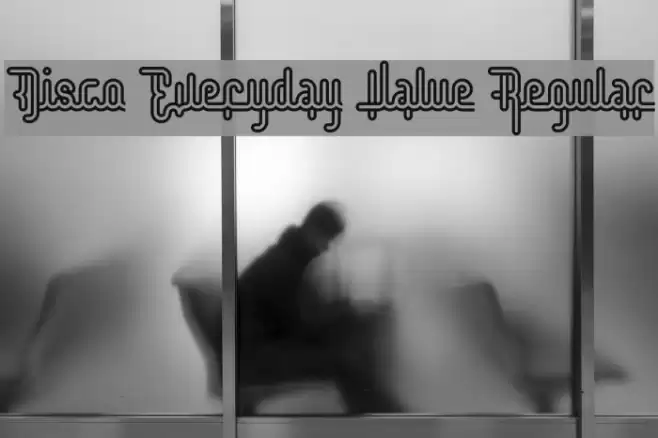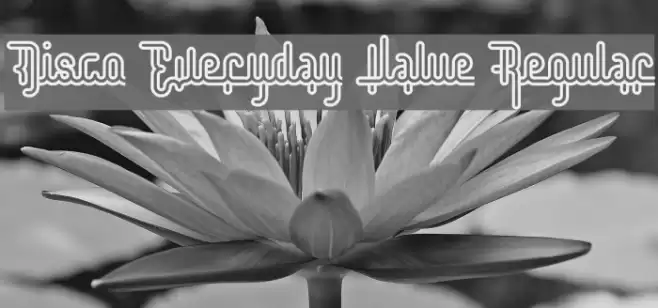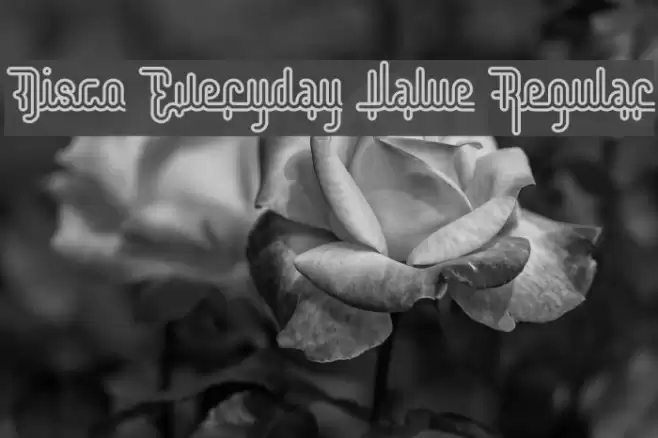
Disco Everyday Value Regular Font
Disco Everyday Value Regular Description
This font features a unique, decorative style with a retro, futuristic vibe. The characters are composed of bold, interconnected lines that create a sense of movement and rhythm. Each letter is outlined, adding depth and a three-dimensional effect. The design is intricate, with each character having a distinct, artistic flair. The font is highly stylized, making it ideal for creative and eye-catching designs. Its geometric shapes and bold outlines make it stand out, while the consistent line thickness provides a cohesive look across all characters.
A bold, decorative font with a retro-futuristic style and intricate line work from Uncategorized fonts.
- Proposed Projects: Ideal for posters, album covers, event flyers, and branding projects that require a bold, artistic touch.
- Overall Style: Retro, Futuristic, Decorative